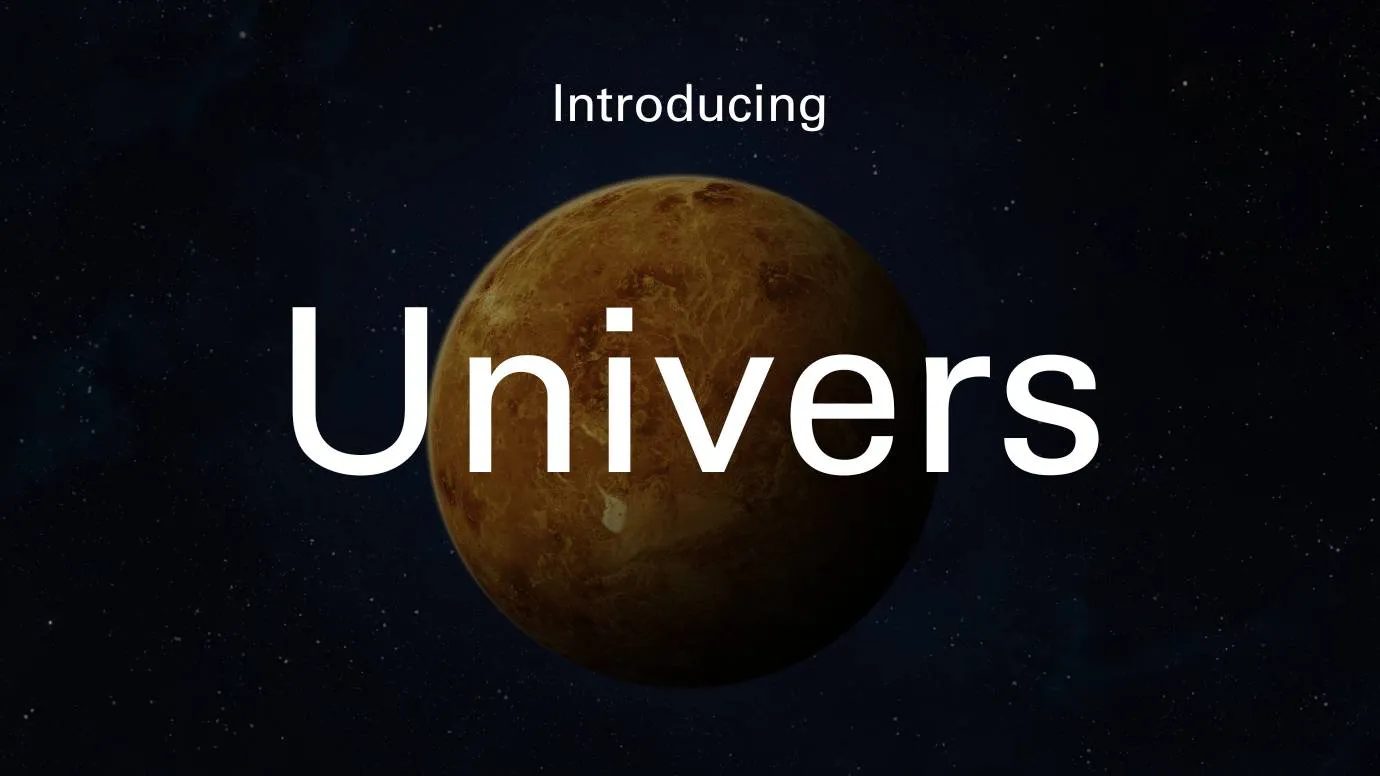
The typeface Univers falls into the broad category of Sans-serif fonts, renowned for their clarity in conveying messages. Introduced in 1957, it quickly captivated the global design community with its unique attributes and characters.
The man behind making this successful typeface is Adrian Frutiger, a Swiss font designer who remained a big name in the 20th century in terms of typography. A few other notable works of him include Frutiger font and Avenir font.
NameUnivers Font
DesignerAdrian Frutiger
FoundryDeberny & Peignot Linotype
TypeSans-serif
Date Released1957